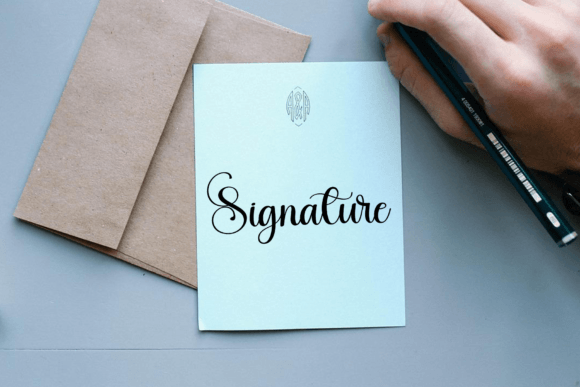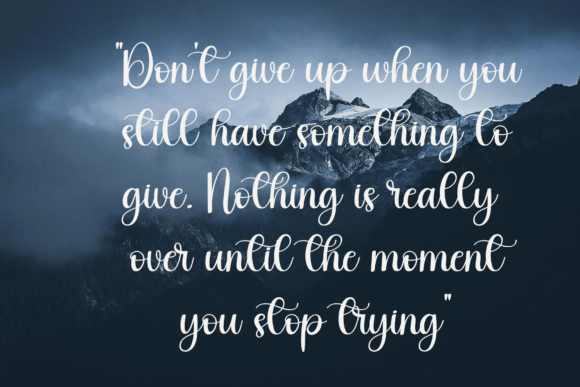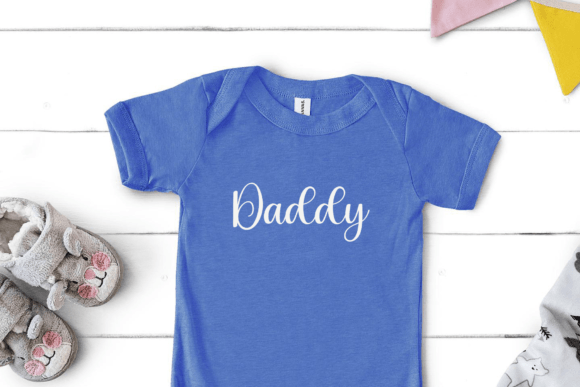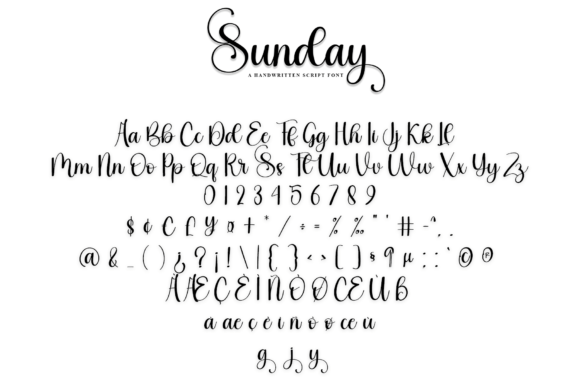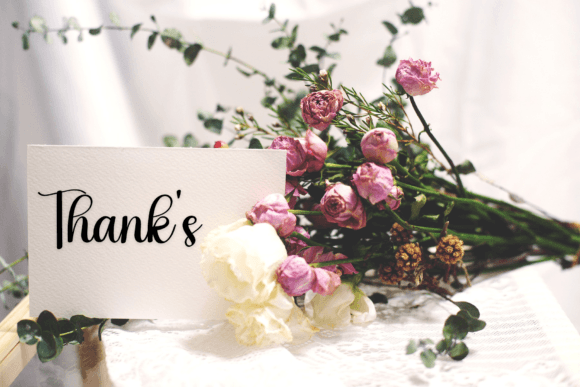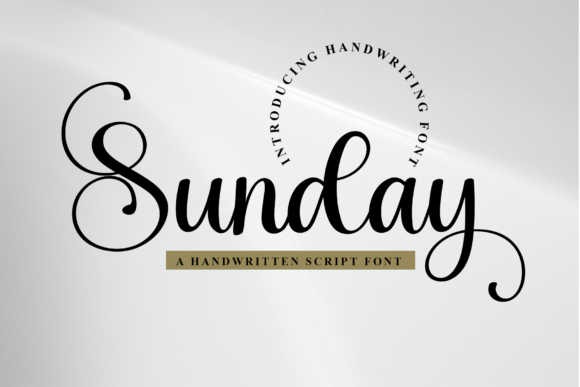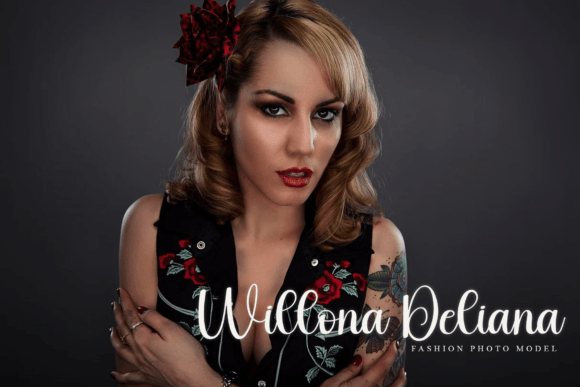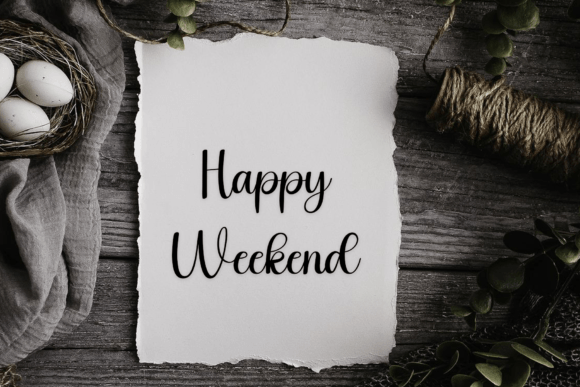
Sunday Font
About Sunday Font
Sunday is an elegant and feminine typeface that exudes sophistication and is well-suited for a variety of headline applications. This font is a perfect choice for a range of design projects, particularly for wedding stationery, invitations, flower shops, packaging, and social media posts.
The elegance of Sunday makes it an ideal font for wedding stationery. Its refined and graceful letterforms contribute to a sense of sophistication, creating a visually appealing look that complements the romantic and special nature of wedding materials.
In invitations, Sunday adds a touch of femininity and charm. The font’s elegant style enhances the overall aesthetic, making it suitable for formal invitations and special events where a sense of grace and style is desired.
For flower shops and packaging, Sunday brings a delicate and refined look. Its feminine characteristics complement floral designs and add a touch of elegance to product labels or packaging materials, creating a cohesive and appealing visual identity.
In social media posts, Sunday adds a touch of sophistication to your text. Whether you’re sharing updates, promotions, or announcements, the elegant nature of the font enhances the visual impact of your posts, making them more captivating and stylish.
The versatility of Sunday makes it a valuable asset for various design projects where an elegant and feminine touch is desired. Its well-crafted letterforms ensure legibility and aesthetic appeal, making it suitable for a wide range of applications.
In summary, Sunday is more than just a font; it’s a design asset that brings elegance and femininity to your headlines. Whether you’re working on wedding stationery, invitations, flower shop branding, packaging, or social media posts, Sunday is ready to elevate your designs with its refined and sophisticated typeface.